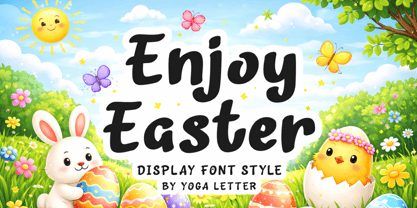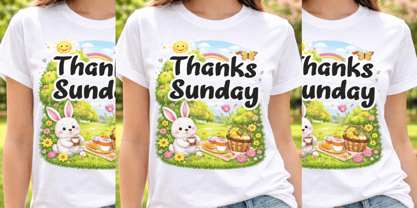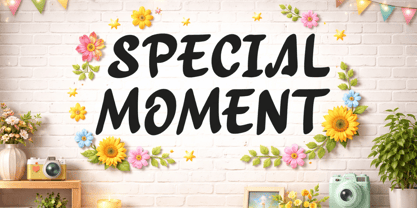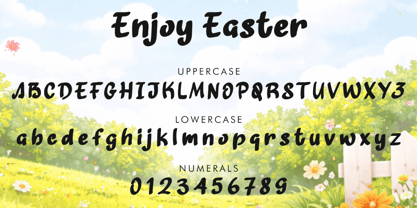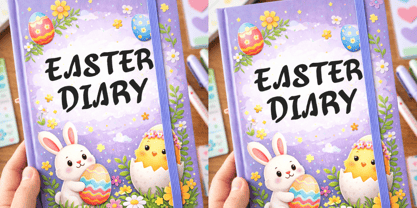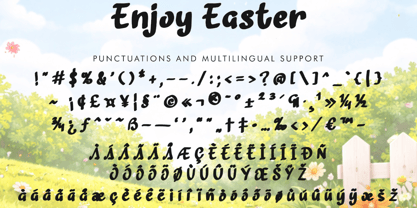
Enjoy Easter
by Yoga Letter
The Enjoy Easter Font Family was designed by Isroni Yoga Prasetya and published by Yoga Letter. Enjoy Easter contains 1 styles. More about this family
"Enjoy Easter" is a cute and unique display font. It features uppercase and lowercase letters, numerals, punctuations, and multilingual support. It's perfect for Easter, spring, banners, posters, branding, logos, comics, magazines, business branding, t-shirts, book titles, cartoons, tattoos, stickers, Easter greeting cards, Easter egg hunt posters, and more.
Designers: Isroni Yoga Prasetya
Foundry: Yoga Letter
Yoga Letter is independent Type Foundry based in Indonesia, Magelang. I'm a graphic designer who love lettering and creates some fonts with all of my depth love. I'm making creative & fresh fonts, high quality, highly recommended, and suitable for your business. I hope can be a contributor as a fonts author at MyFonts, and I will do the best to create amazing fonts.